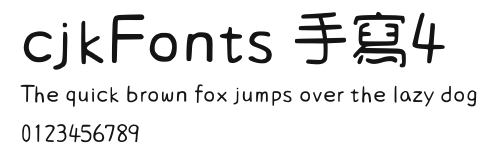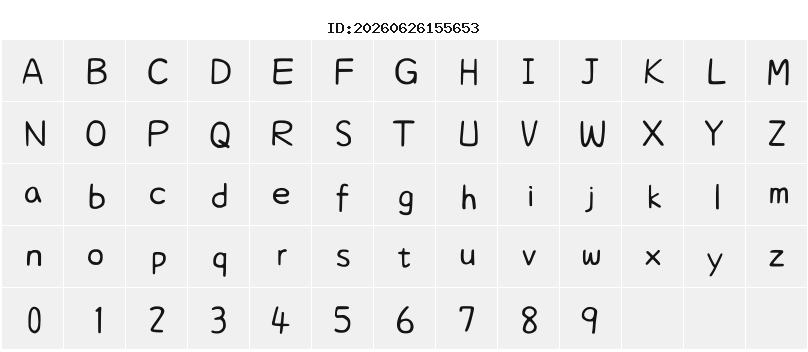
cjkFonts 手寫4 Preview
• Font Name: cjkFonts 手寫4
• Full Font Name: cjkFonts 手寫4
• Version: Version 1.01
• PostScript Name: cjkFontsHandwriting4
• Character Count: 12651
About cjkFonts 手寫4.ttf
cjkFonts 手寫4.ttf is a modern, elegant sans-serif font designed for ultimate readability and visual harmony. Perfect for branding, headlines, web design, and print materials.